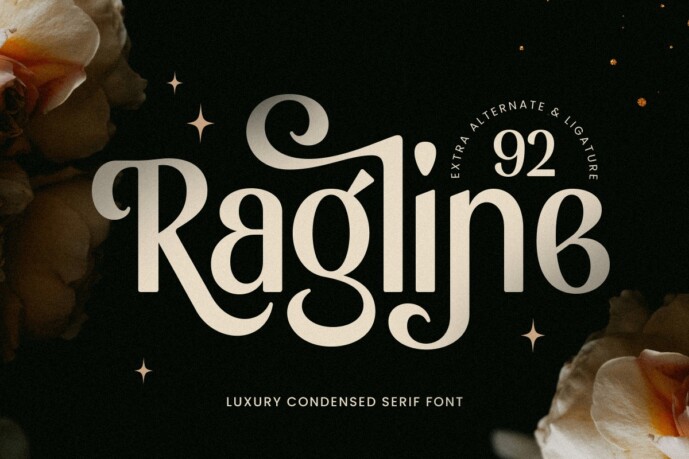
Ragline Font
Designer: HamzStudio
Ragline is a luxury condensed serif font designed for elegance, sophistication, and modern refinement. With its sleek, narrow proportions and high-end aesthetic, this typeface is perfect for premium branding, fashion editorials, luxury packaging, and upscale invitations.
The combination of sharp serifs and graceful curves makes Ragline ideal for modern logos, magazine headlines, and elegant typography that demands attention. Whether used in minimalist layouts or bold branding, this font exudes a sense of class and exclusivity.
Elevate your designs with Ragline, a typeface that blends luxury and timeless beauty for a truly refined look.